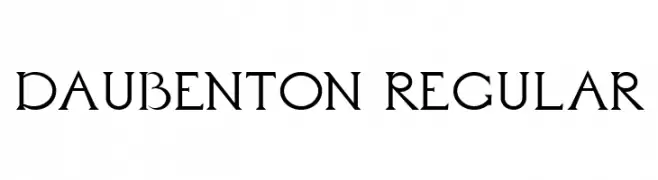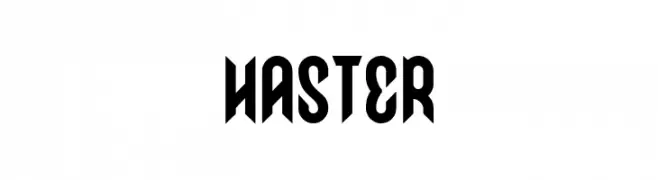
A bold, ornate Blackletter font with intricate, medieval-inspired design.
A bold, dynamic brush script with expressive strokes and a hand-painted look.
A classic serif font with elegant, sharp serifs and balanced proportions.
A playful, rounded font with smooth, flowing lines and consistent stroke width.
A bold, modern sans-serif font with geometric lines and high contrast.
A playful, bold, and hand-drawn font with a whimsical style.
A bold, angular font with geometric shapes and sharp edges.
A bold and expressive script font with dynamic, flowing letterforms.
A playful and elegant script font with flowing, connected letters.
A flowing, elegant script font with a natural handwriting style.